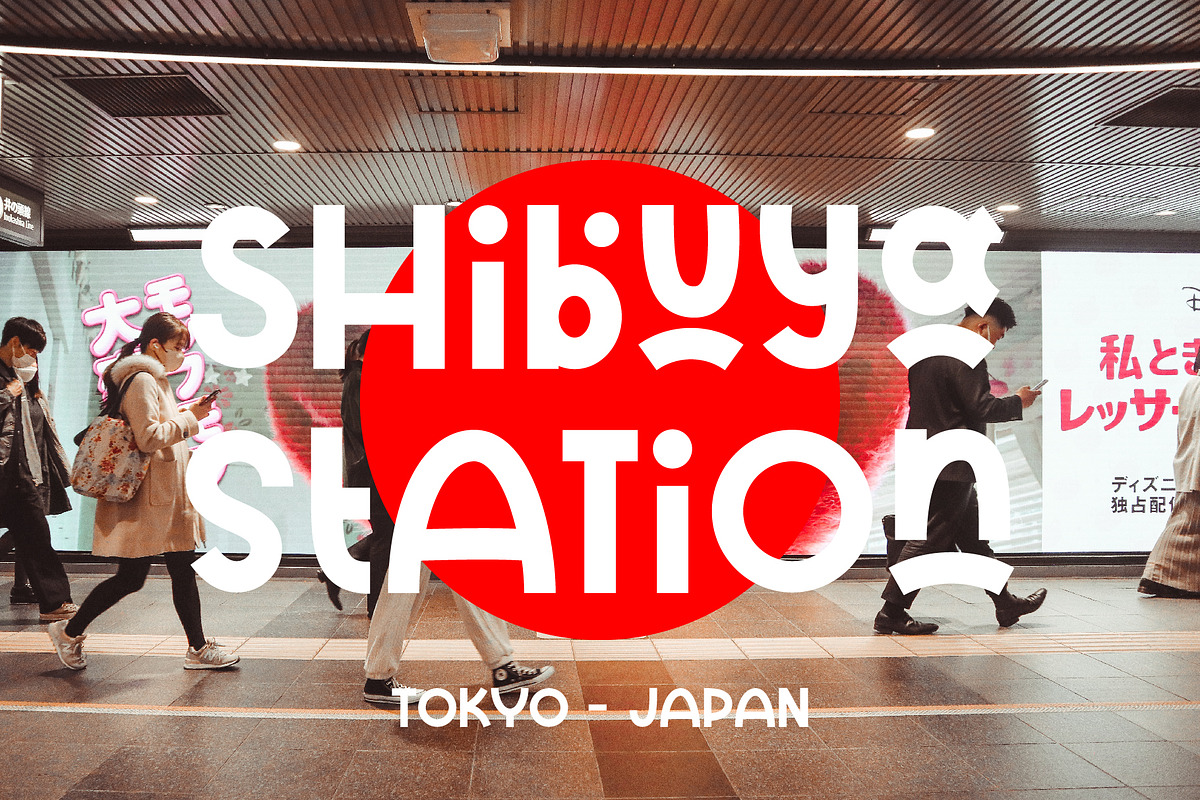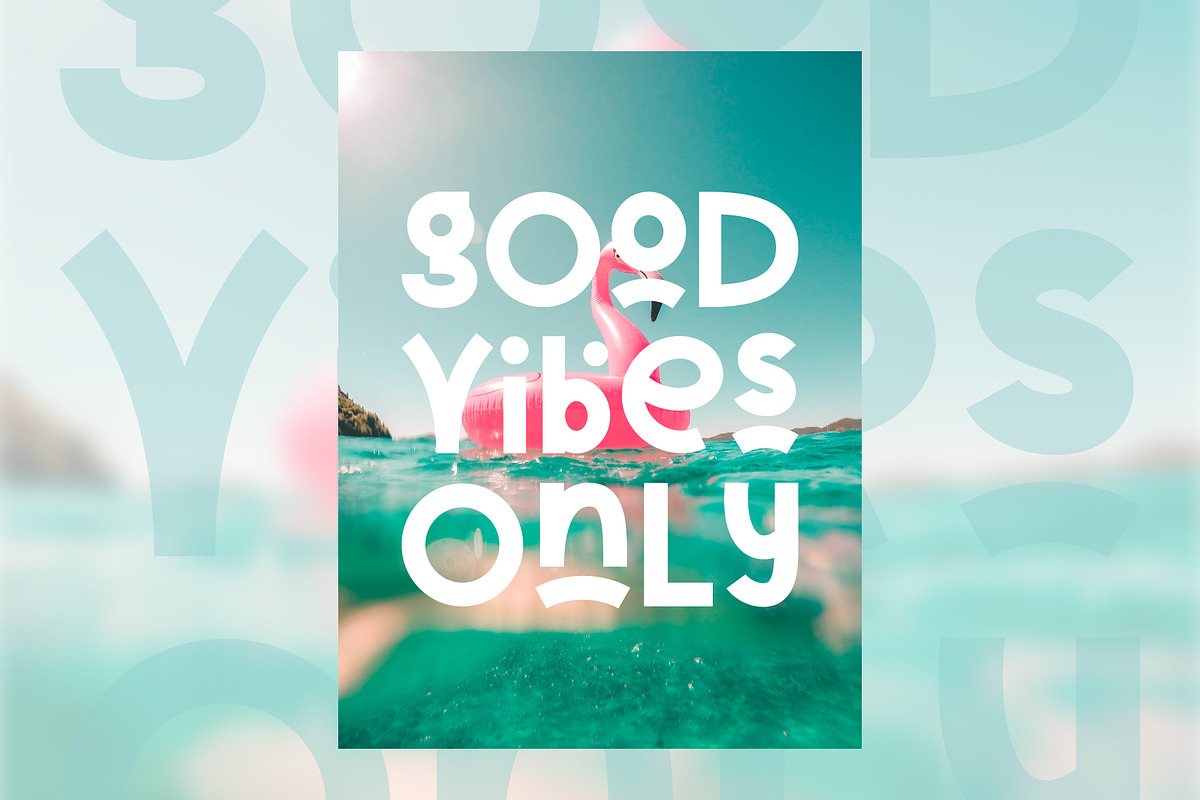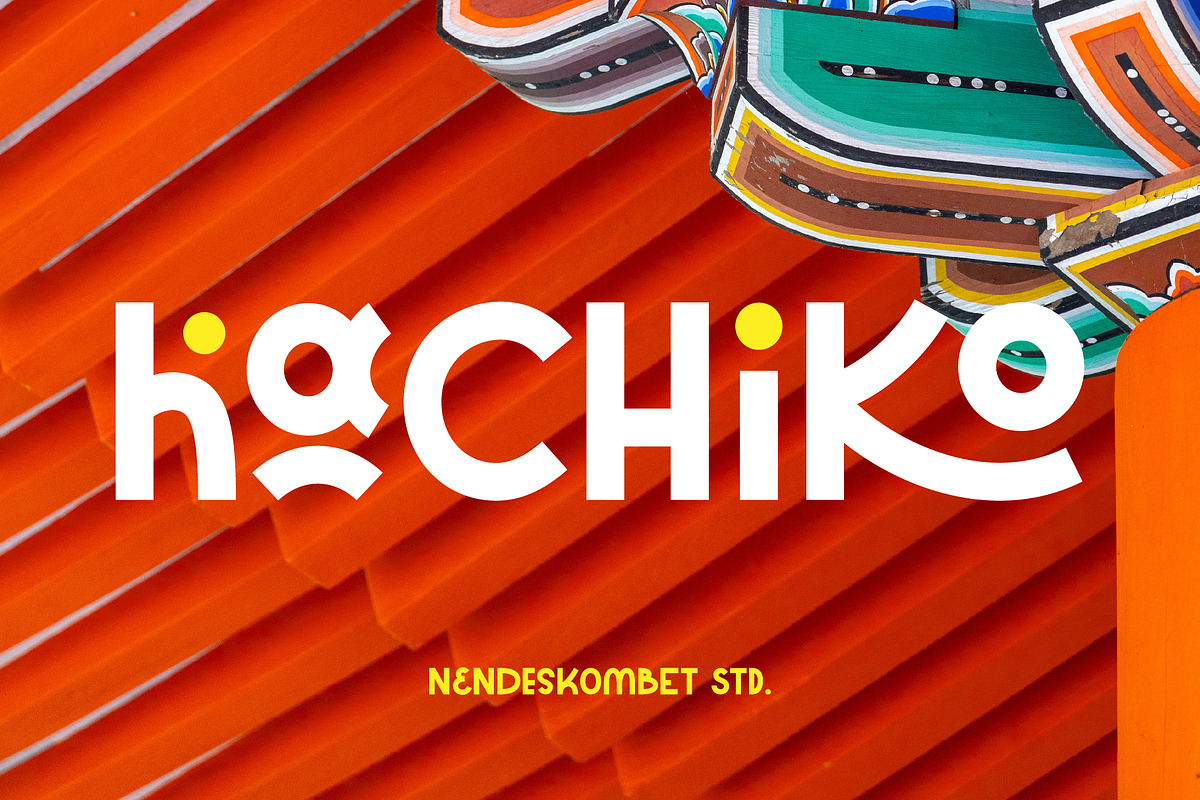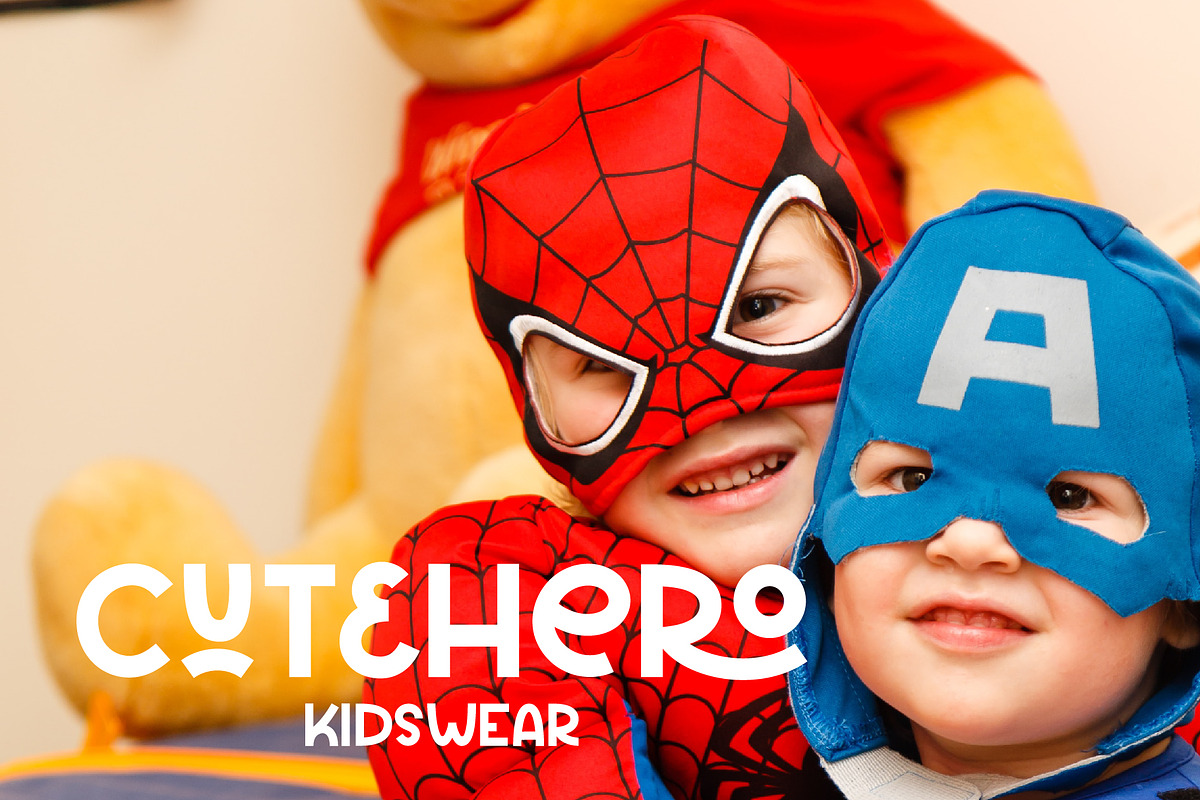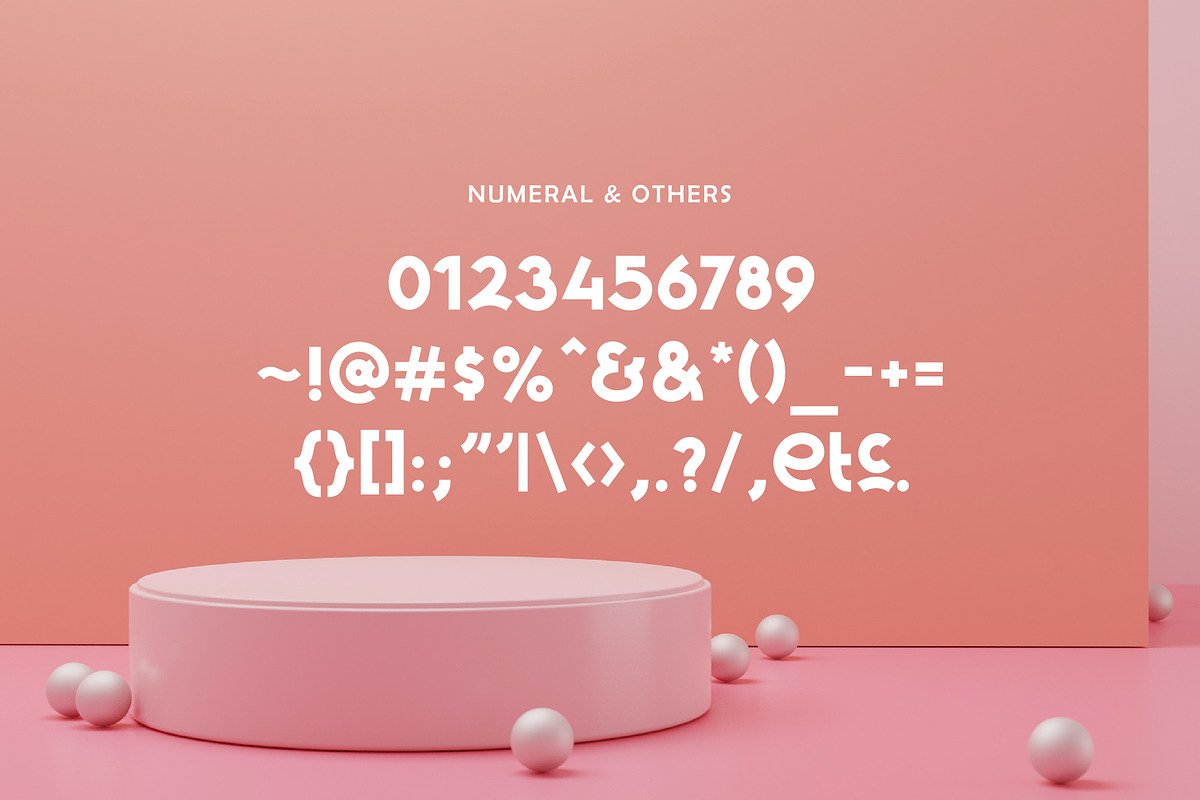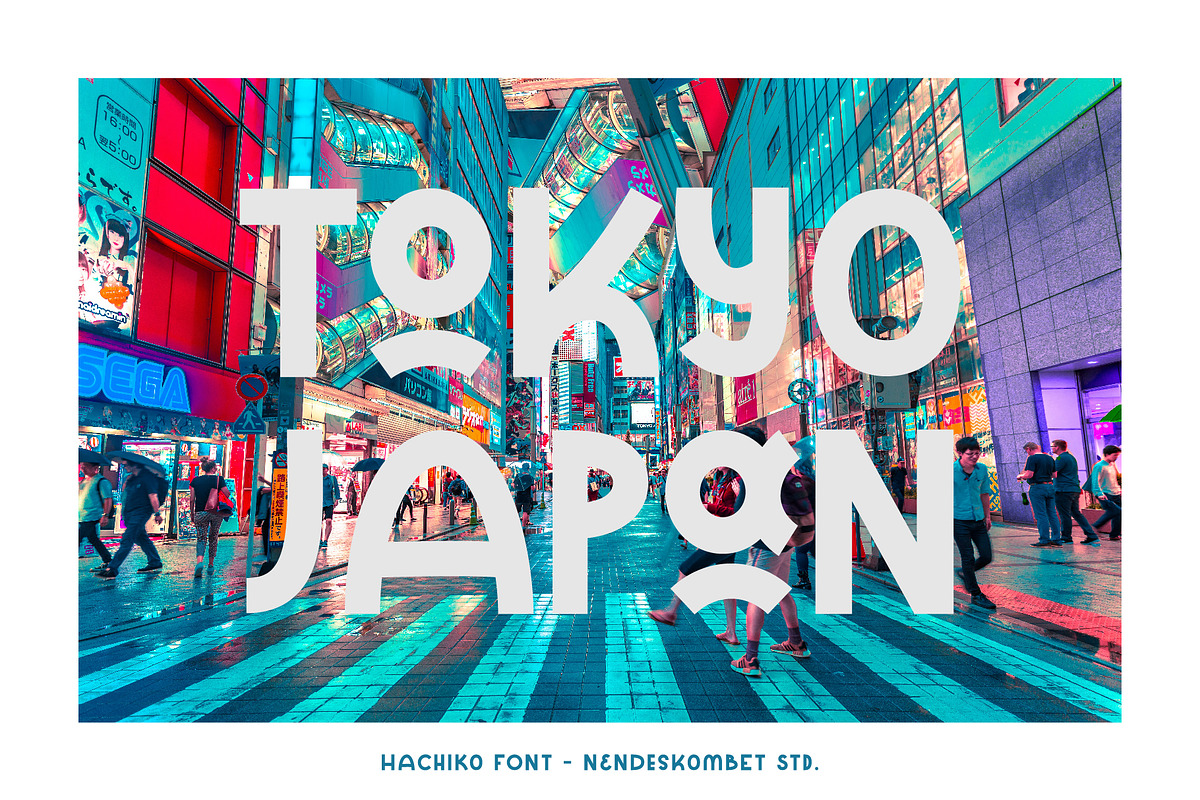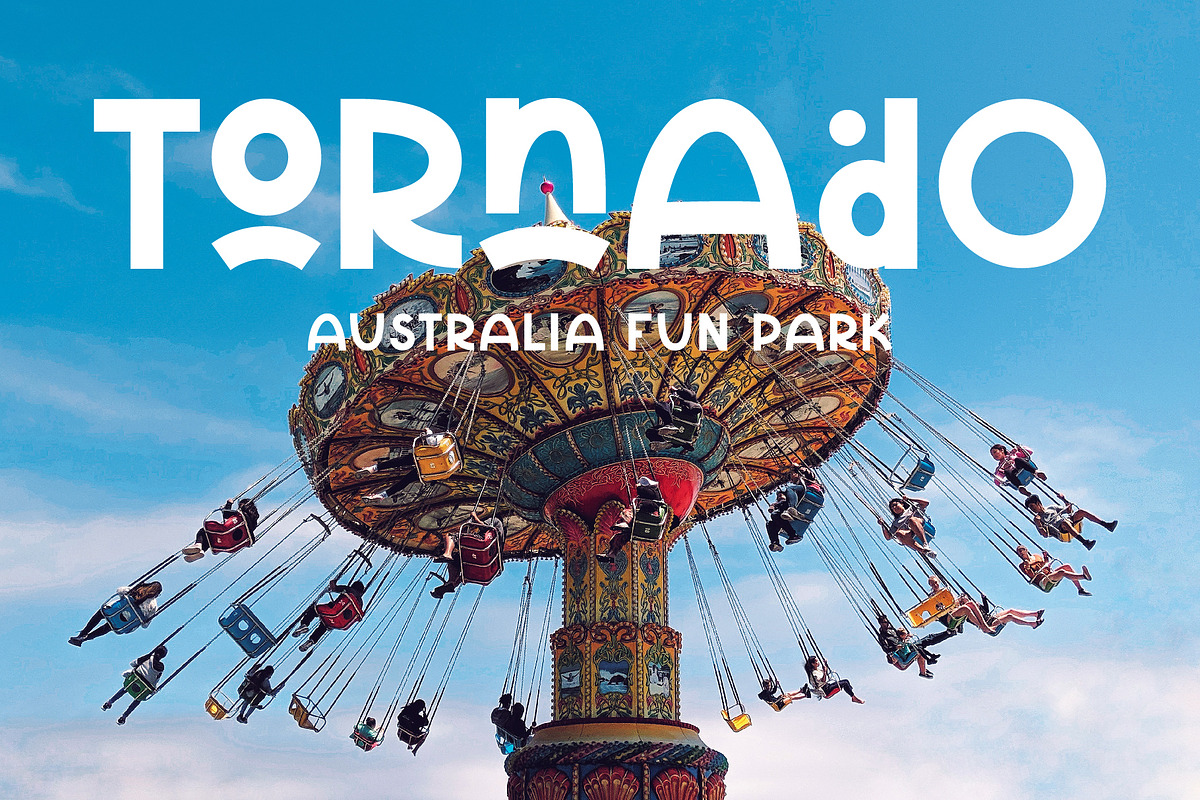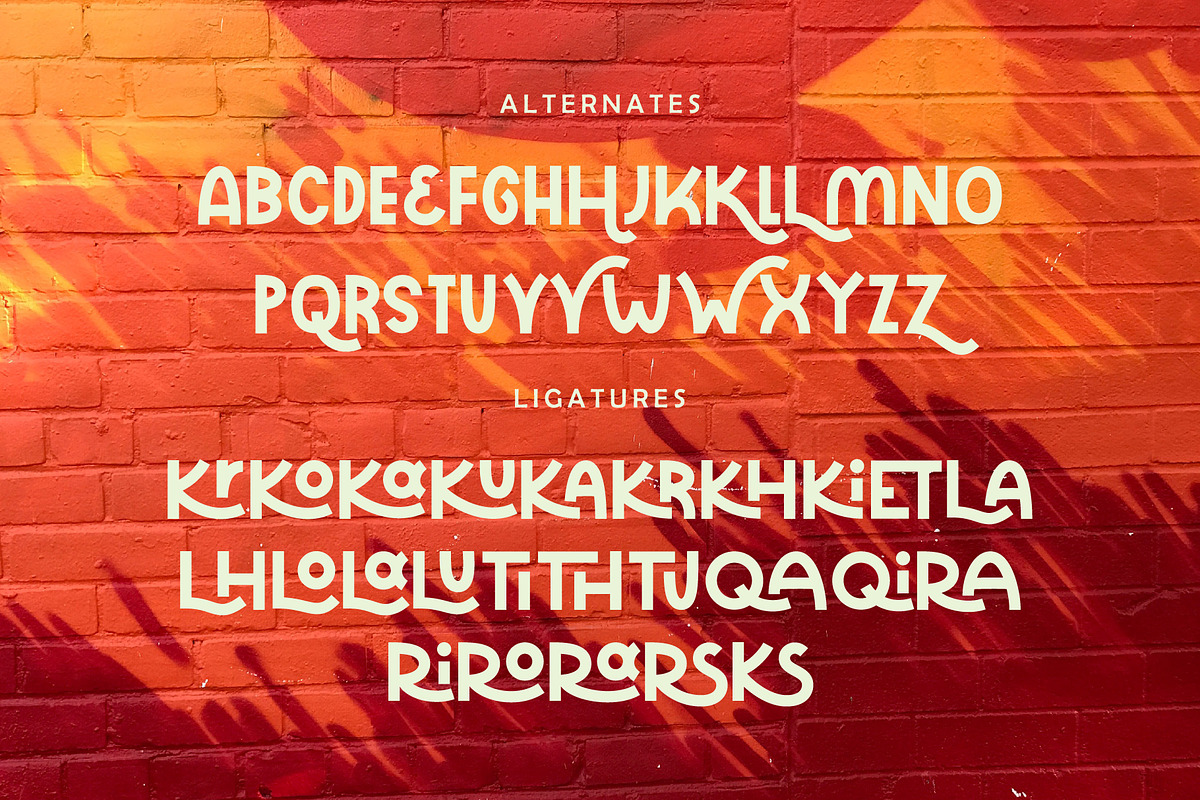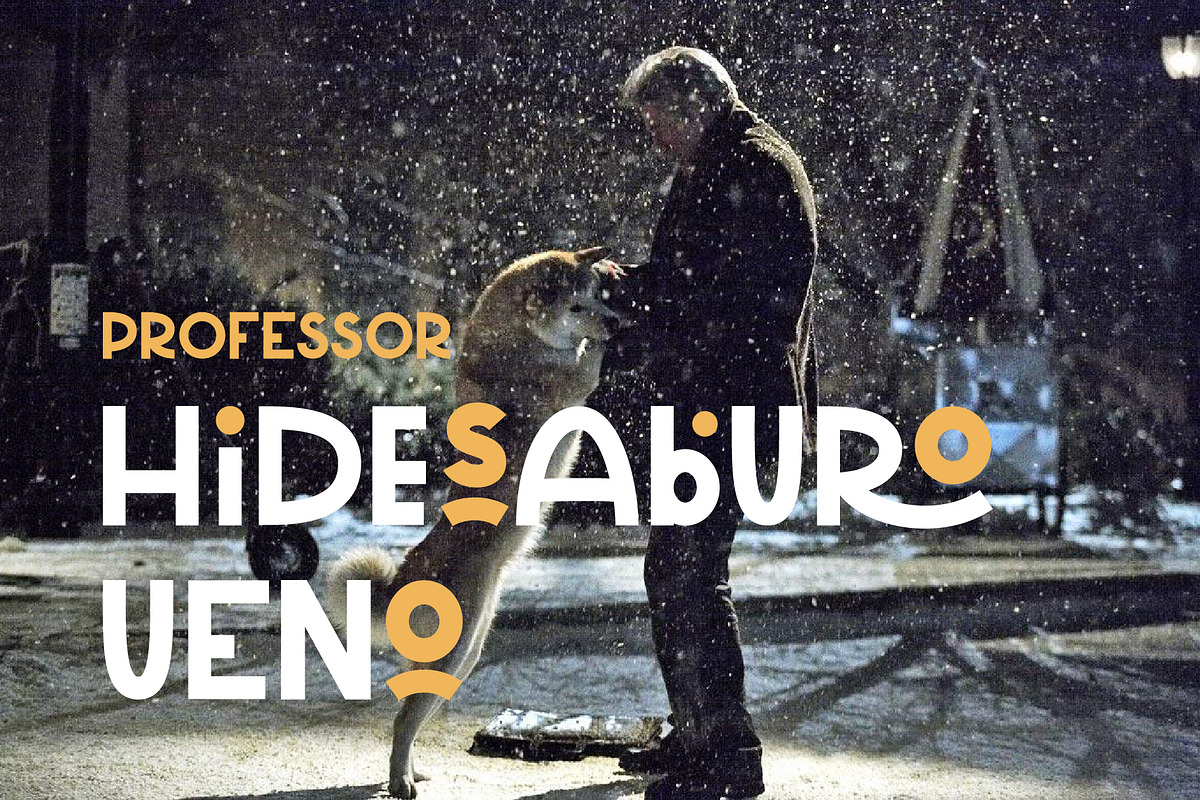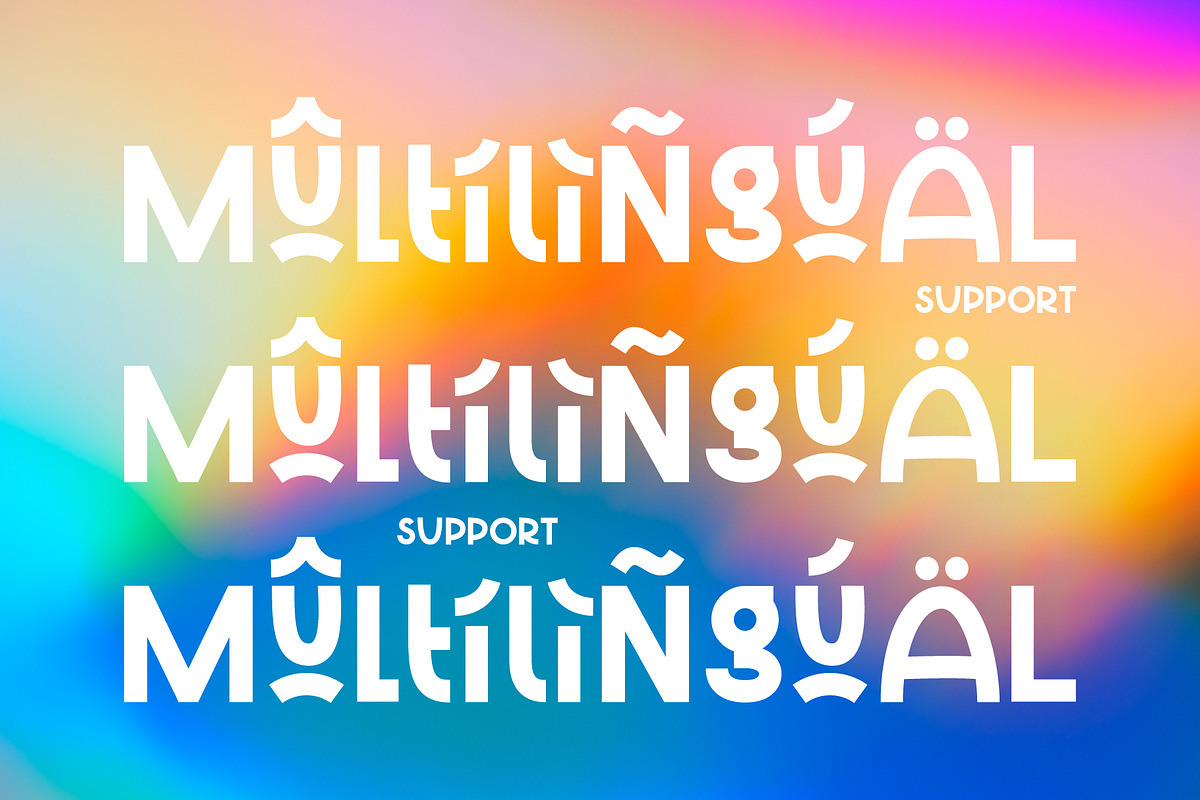
Hachiko - Full of Fun Font
"Elevate Your Creative Expression with Hachiko Font: Your Ultimate Fun Typography Solution! 🎨
Imagine your words and designs dancing with delight – that's exactly what Hachiko Font brings to the table! This unique typeface is a burst of pure, unadulterated fun that will breathe life into your creative projects. With its exuberant strokes and whimsical personality, Hachiko is more than just a font; it's a source of boundless creativity.
Hachiko Font is your go-to choice for infusing playfulness into everything from invitations to posters, logos to social media graphics. Its lively and distinctive characters will instantly captivate your audience and give your work that extra edge it deserves. Whether you're designing for a children's event, a vibrant brand, or simply want to inject some joy into your work, Hachiko Font is your trusted partner.
Let your imagination run wild as Hachiko Font becomes your creative sidekick. Dive into a world where fonts are more than letters – they're expressions of joy and exuberance. Upgrade your typography game and let Hachiko Font redefine the way you communicate visually. Get ready to unleash the fun – choose Hachiko today!"